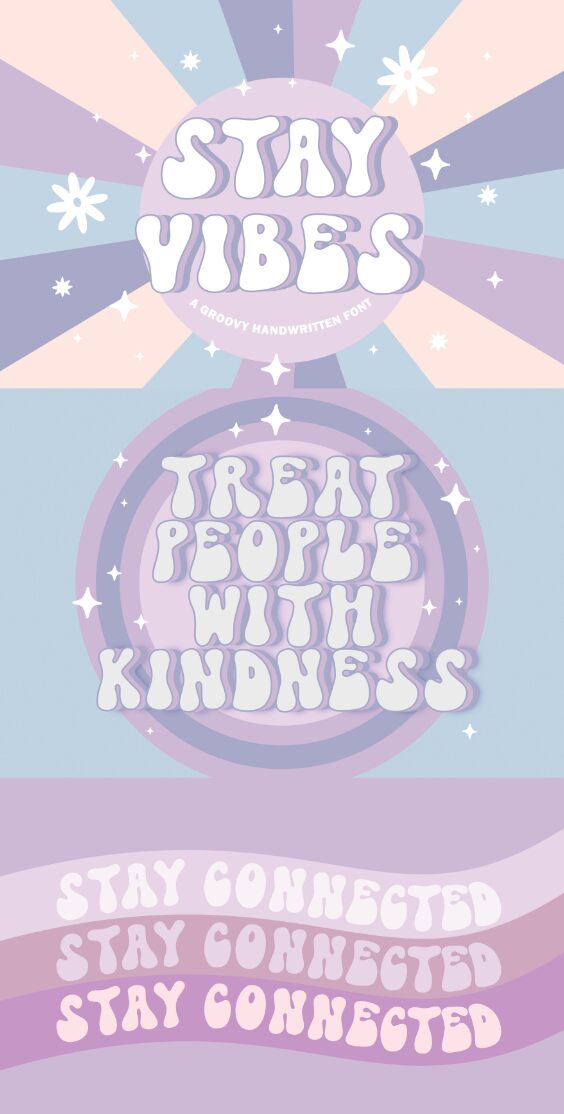
Introducing StayVibes, a bold groovy display font designed by Jamaludin JK @Jimtypestudio. Perfect for projects needing an extra dose of funky vibes, from music album covers to modern fashion designs.
StayVibes